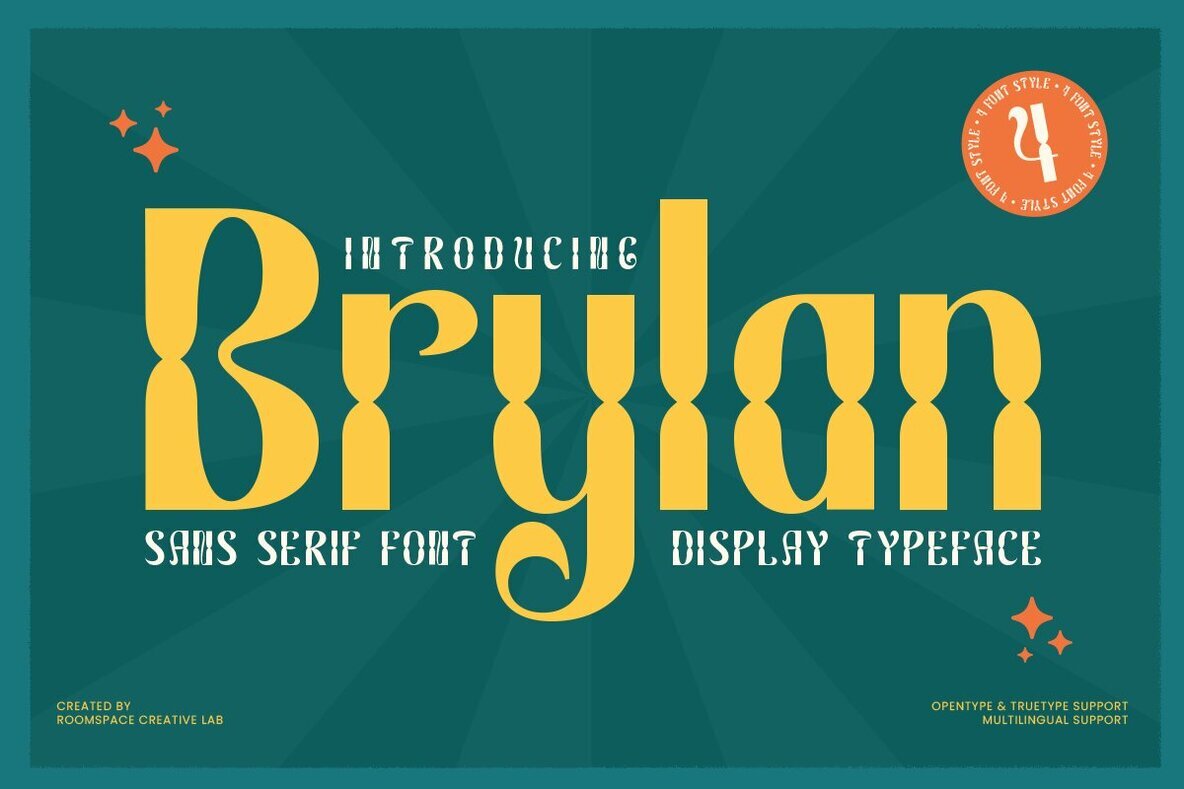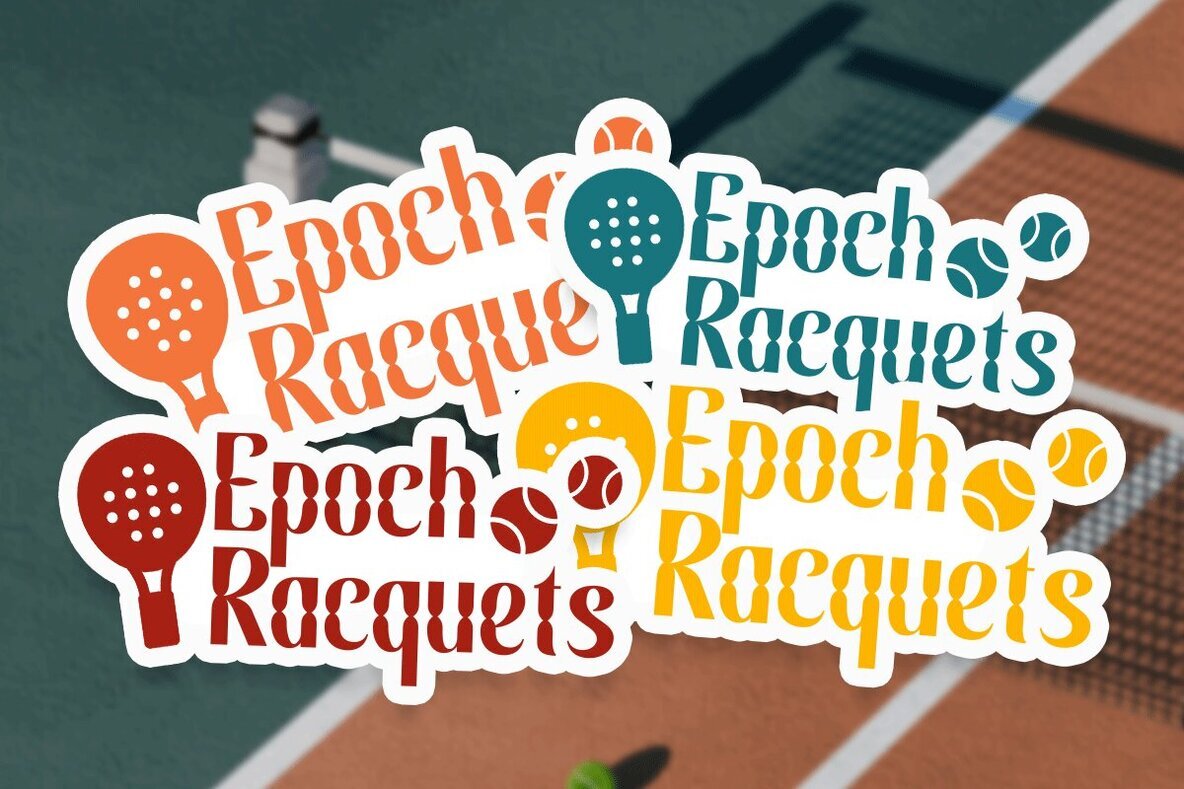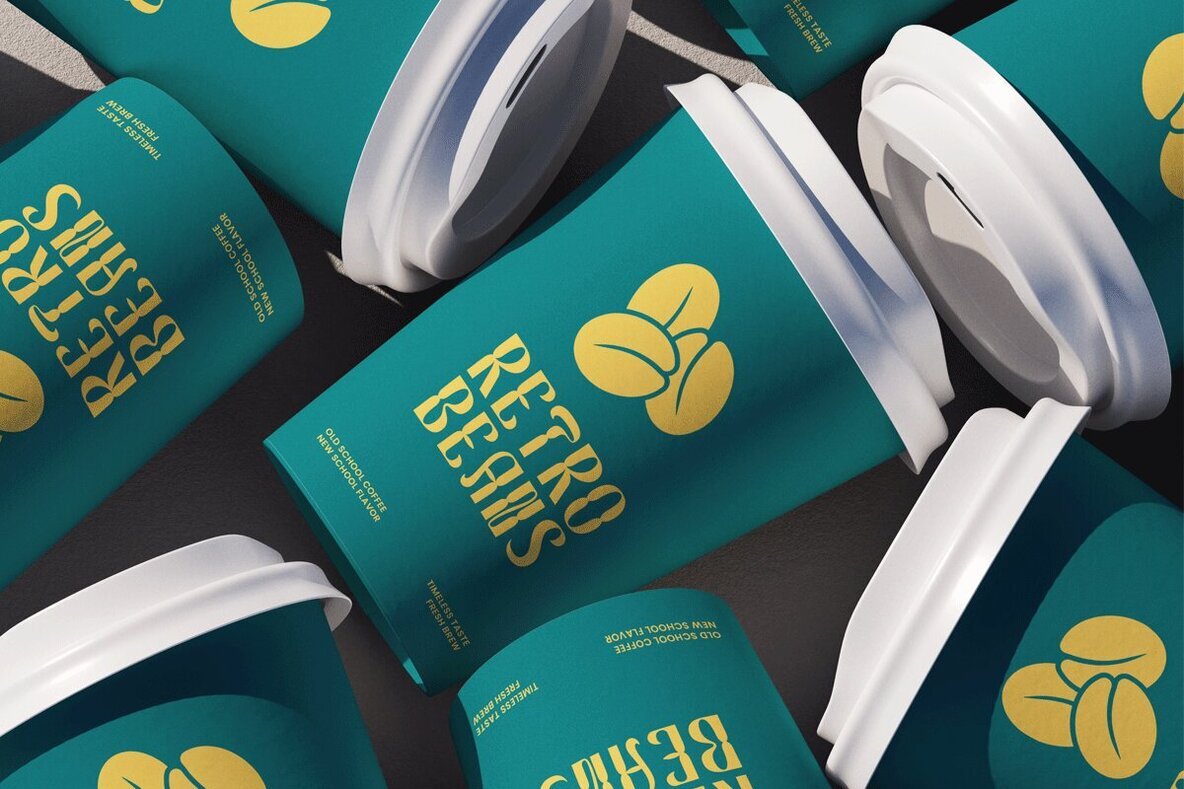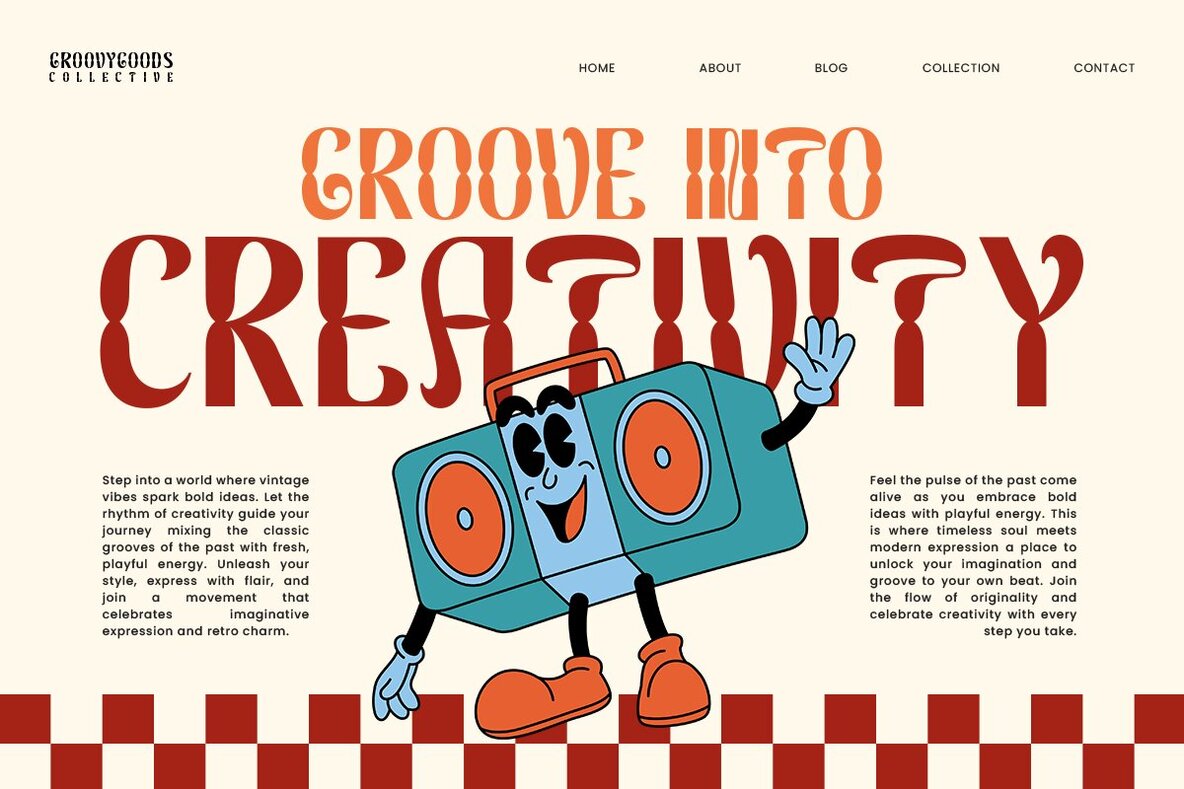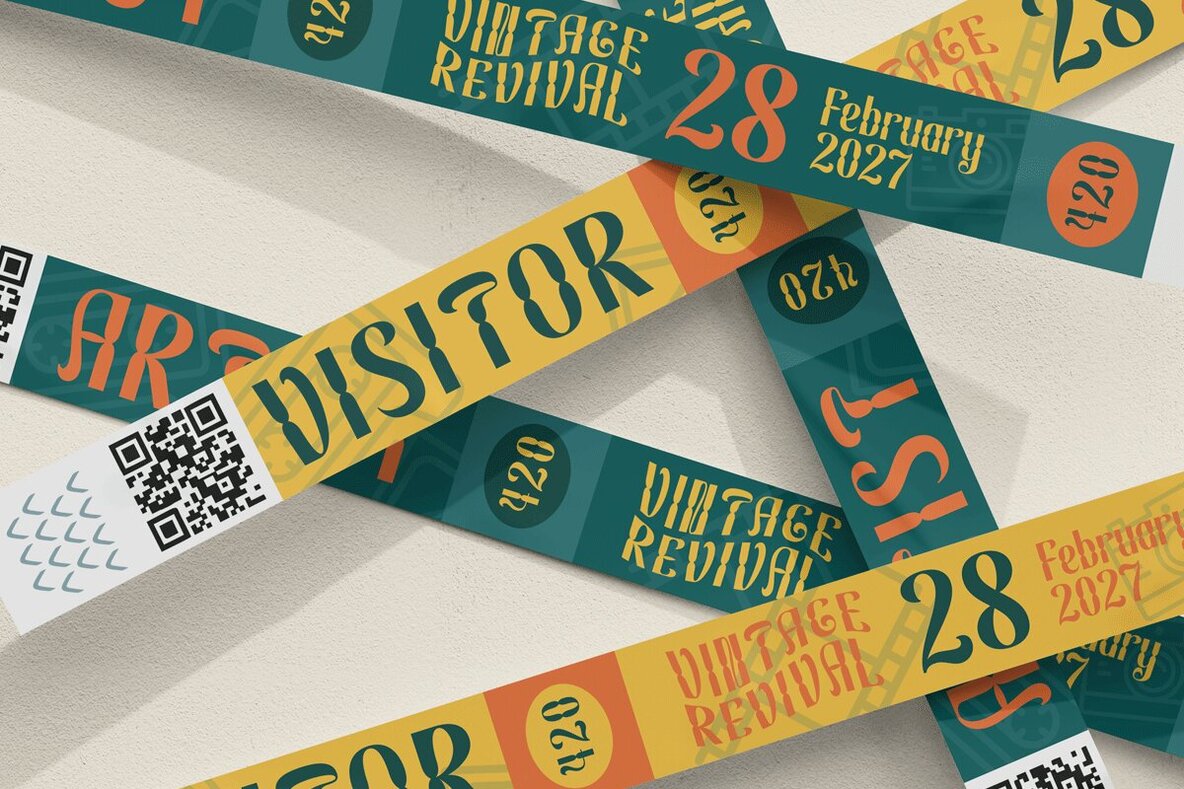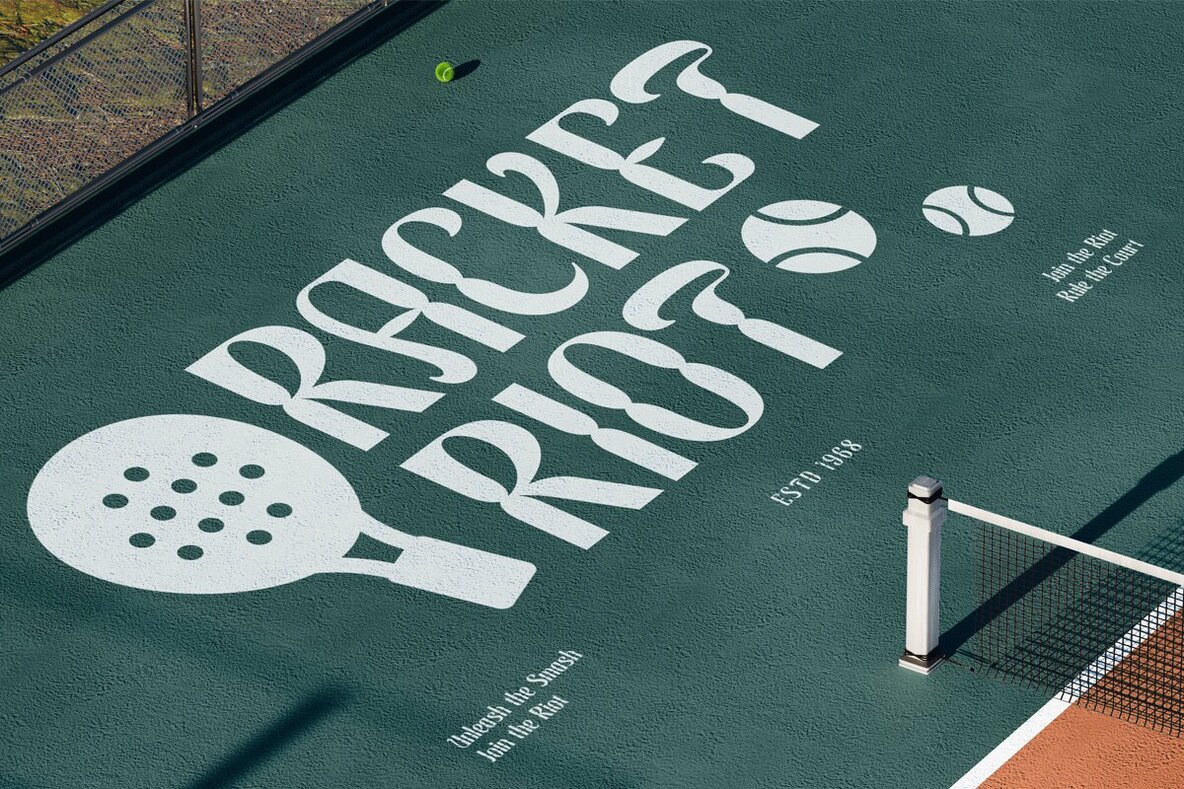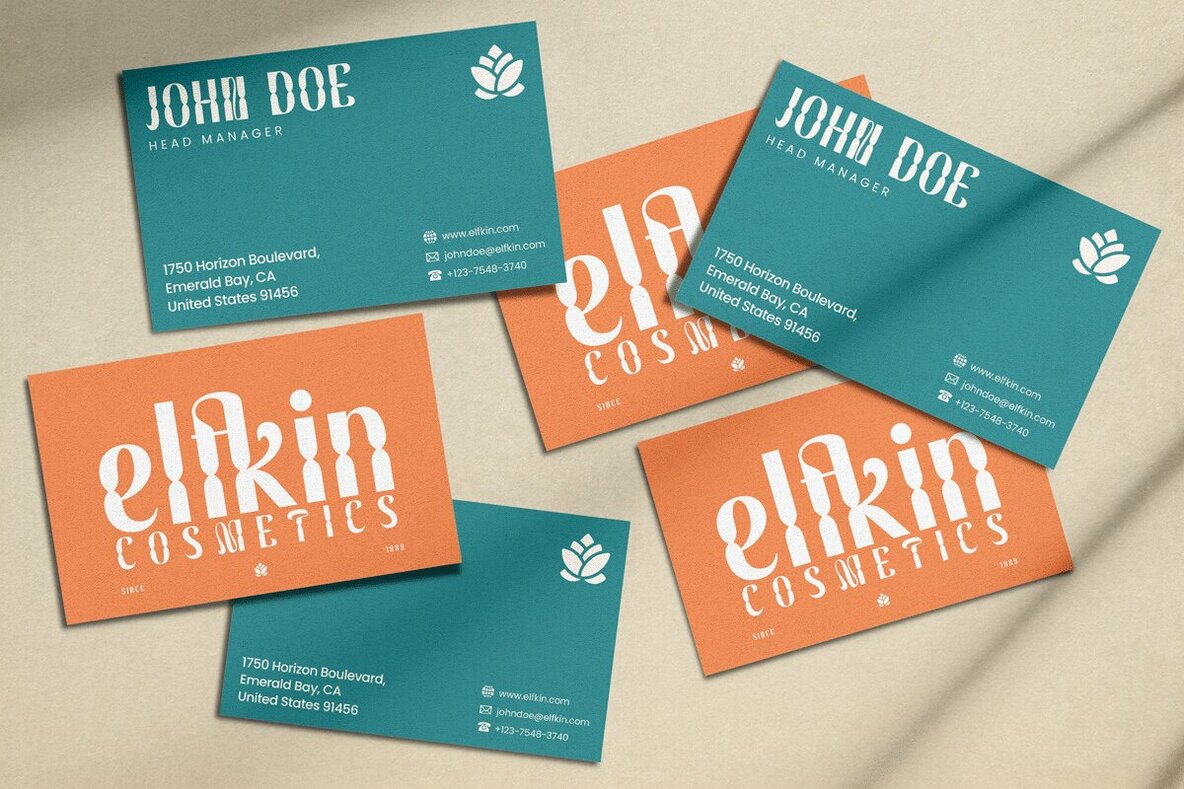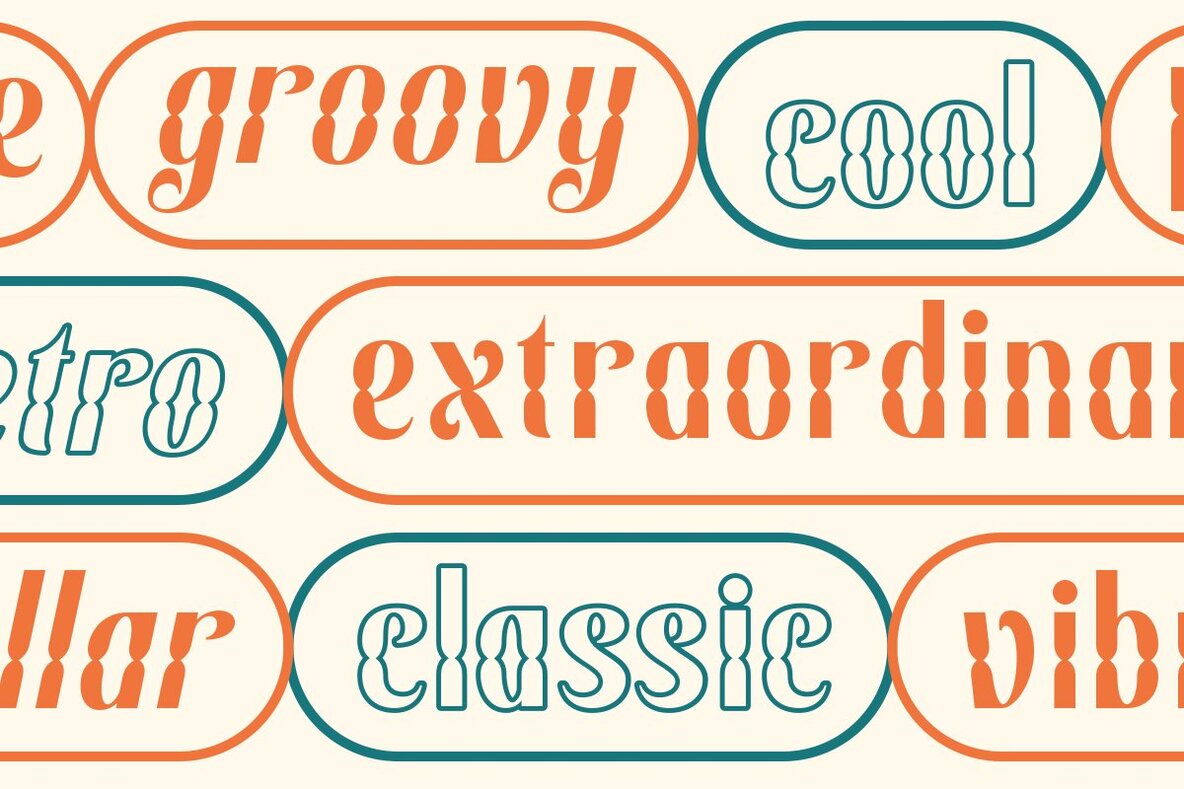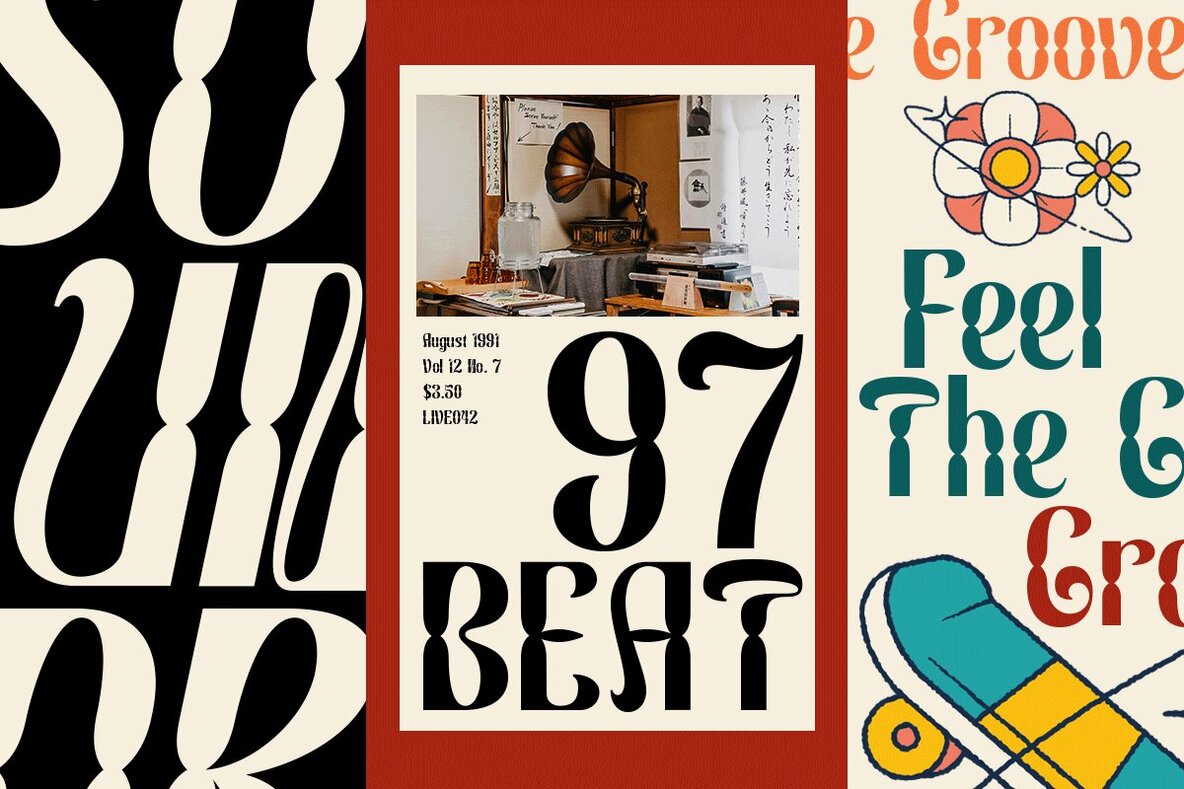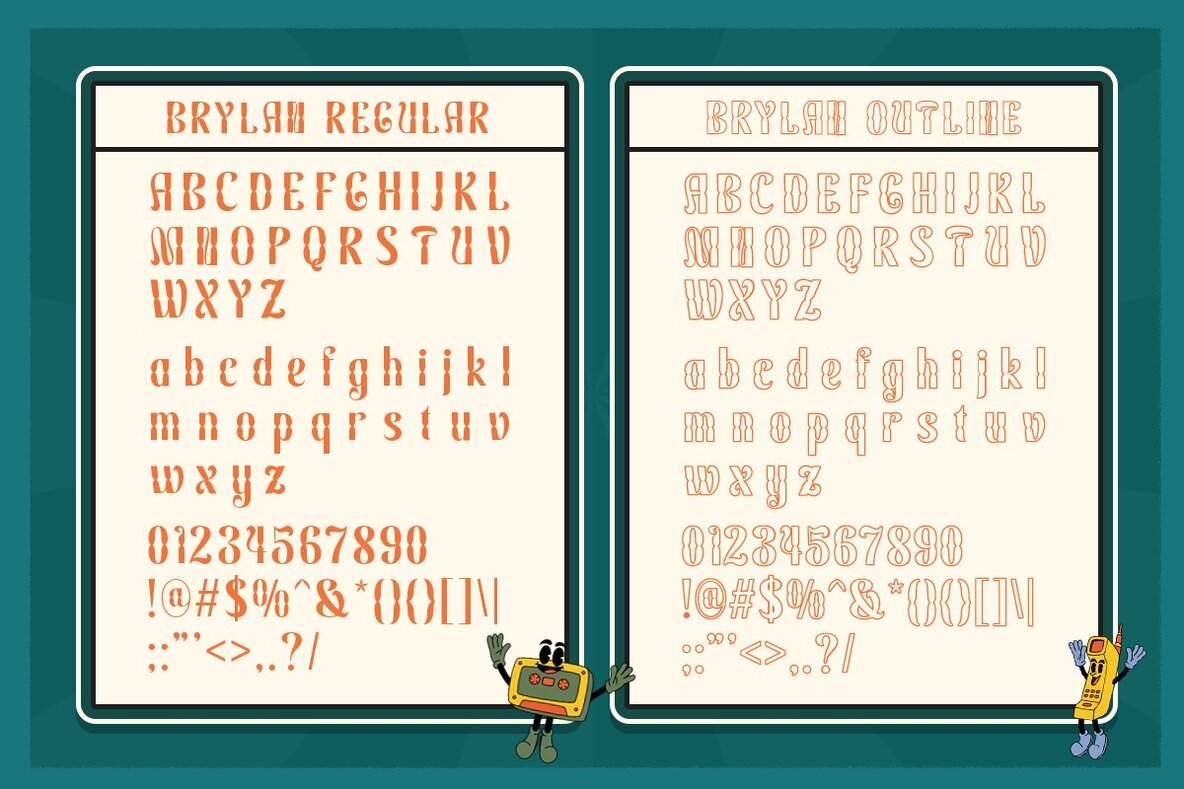
Brylan Font
Brylan stands out with its geometric precision and bold visual rhythm. Inspired by retro design, it offers sculptural forms reminiscent of classic signage and contemporary editorial layouts. This typeface balances nostalgia with a modern, clean sensibility, making it suitable for projects that require strong visual impact. Ideal for branding, packaging, and prominent display typography, Brylan brings a confident tone to any design. Its smooth kerning and refined proportions ensure excellent readability, while extensive multilingual support broadens its versatility. Designers seeking a typeface that merges vintage charm with modern utility will find Brylan a reliable addition to their toolkit.Brylan: Retro-Inspired Display Sans Typeface